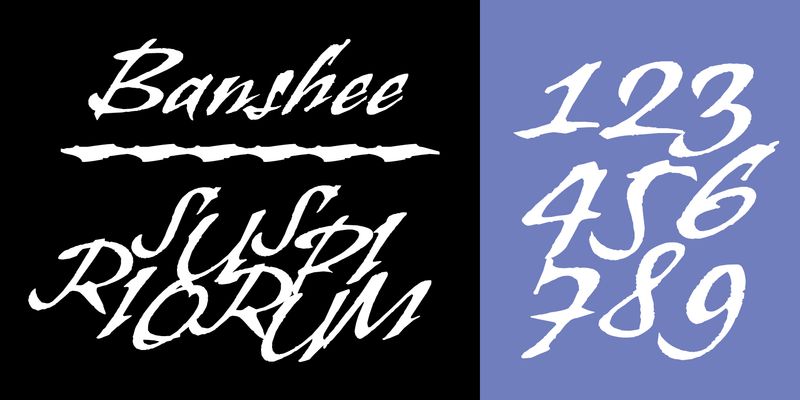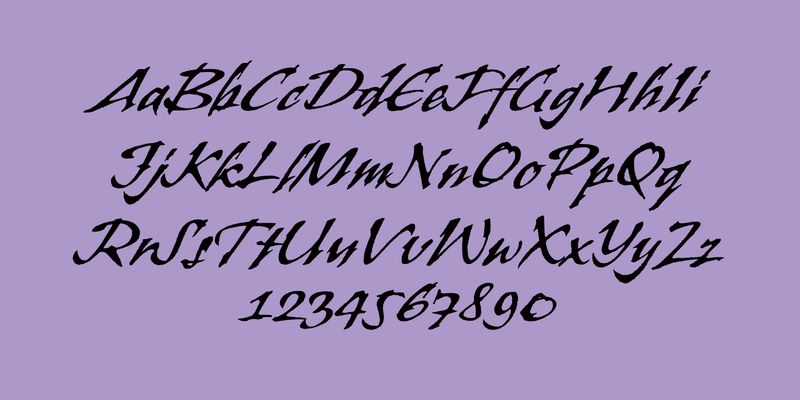
Often working into the wee hours of the night while the wind howled, British type designer and lettering artist Tim Donaldson created the Adobe® Originals typeface: Banshee. This vividly expressive display face is modeled after one of Donaldson’s handwritten lettering styles. Banshee began as letters rapidly written by Donaldson with one of his homemade “ruling” pens. The letterforms are, however, firmly rooted in the tradition of classical chancery italics. With its ragged lines and counters, Banshee realistically captures the irregularity of pen and ink on paper, lending an immediacy to packaging, advertisements, posters, and invitations that few digital typefaces can match. U.S. Patent Design 407,431.